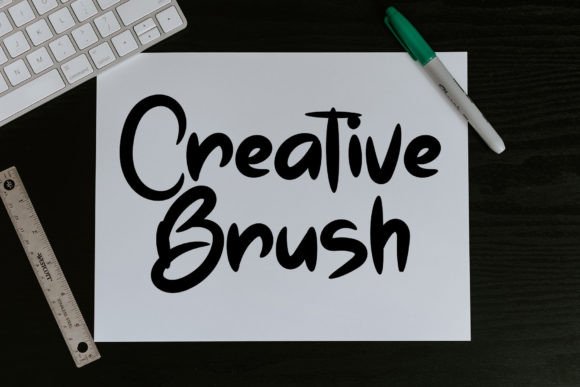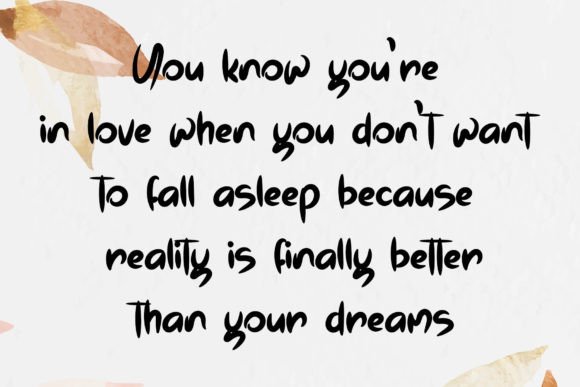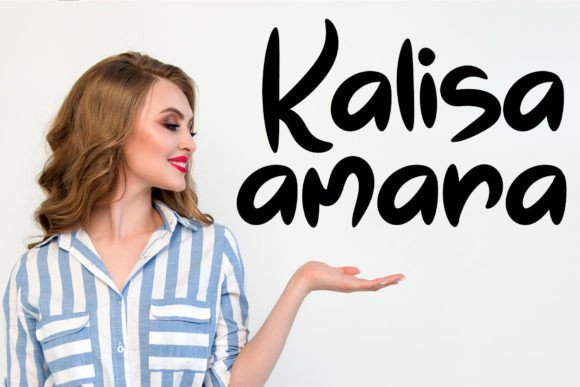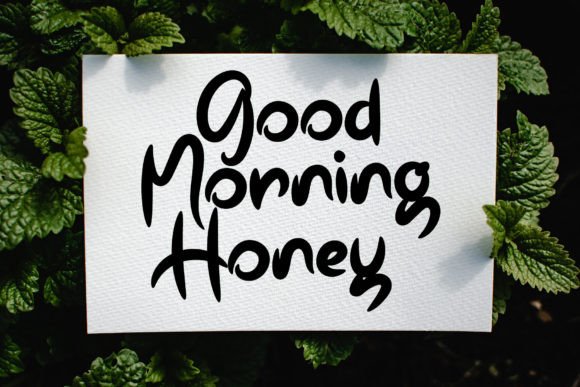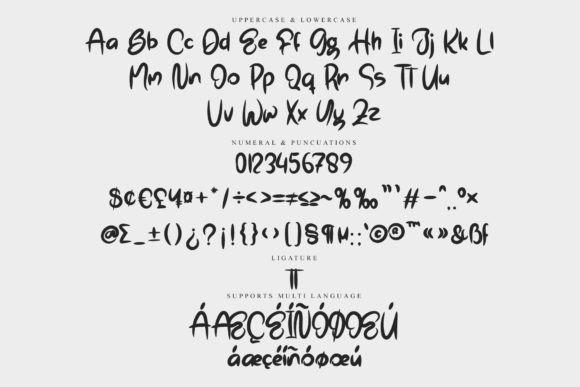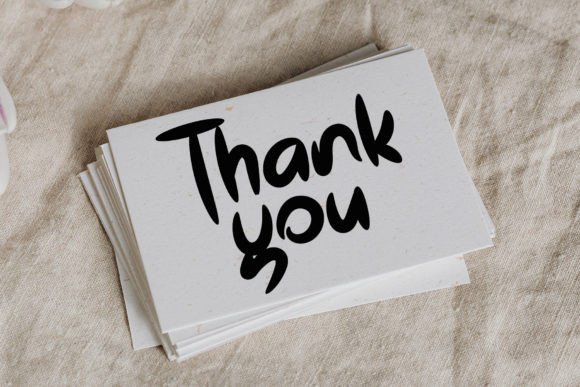
The Perfect Font for Your Free-Spirited Creations
Have you ever found yourself scribbling down ideas in a coffee shop, surrounded by the hustle and bustle of the city, and suddenly feeling a rush of inspiration? That’s exactly what happened to me when I stumbled upon the Boho Signature Font. It’s as if the font was designed specifically for creatives like us, who crave a touch of whimsy and romance in our designs.
The Boho Signature Font is a beautiful, cursive handwritten font that exudes a sense of joy and playfulness. It’s perfect for adding a personal touch to your projects, whether it’s a wedding invitation, a blog post, or a social media graphic. And the best part? It’s incredibly versatile, making it a valuable addition to any designer’s toolkit.
Boho Signature Font Key Features
- Font Style: A beautiful, hand-drawn script font with elegant and whimsical characteristics.
- Character Count: Includes a wide range of characters, including uppercase and lowercase letters, numbers, and punctuation marks.
- Unique Characteristics: Features subtle flourishes, ligatures, and swashes that add a touch of personality and sophistication to any design.
Boho Signature Font Review
Overall, I think the Boho Signature Font is a beautiful and elegant script font that can add a touch of sophistication to any design project. Here are some things that I think work well:
- ✨ Unique and stylish design: The font has a distinct bohemian feel that’s perfect for designers looking for something different.
- ✨ High-quality glyphs: The font includes a wide range of glyphs, including ligatures and swashes, which make it perfect for creating beautiful headings and titles.
- ✨ Easy to use: The font is well-behaved and easy to use, even at small font sizes.
However, I do have a few criticisms:
- ⚠️ Limited language support: The font only includes a limited range of languages, which may be a problem for designers who need to create content in multiple languages.
- ⚠️ Not suitable for body text: The font is quite ornate and may be difficult to read at small font sizes, making it better suited for headings and titles.
Overall, I think the Boho Signature Font is a great choice for designers who want to add a touch of elegance and sophistication to their projects. Just be aware of its limitations and use it wisely.
The Boho Signature Font is perfect for:
- Food and lifestyle blog posts.
For the best results, use the Boho Signature Font in combination with watercolor or hand-drawn elements to create a unique and eye-catching design.
Is the Boho Signature Font suitable for use in digital products?
Yes, the Boho Signature Font is designed to be legible and clear on various digital platforms, including mobile devices, web browsers, and e-readers. However, it’s essential to test the font in your specific design context to ensure optimal readability.